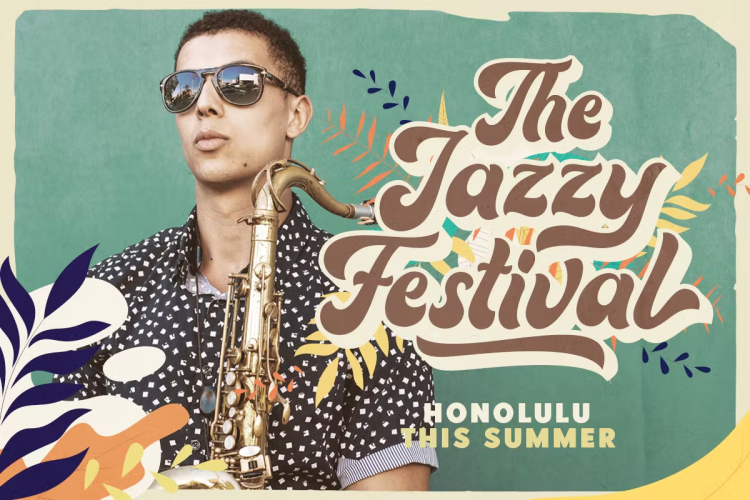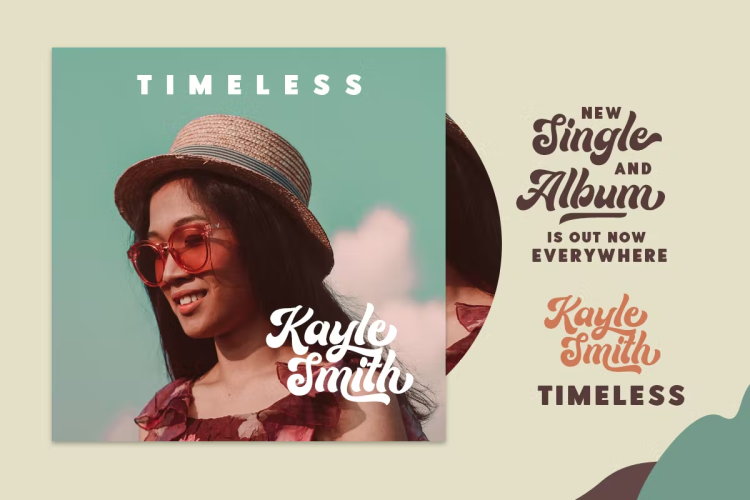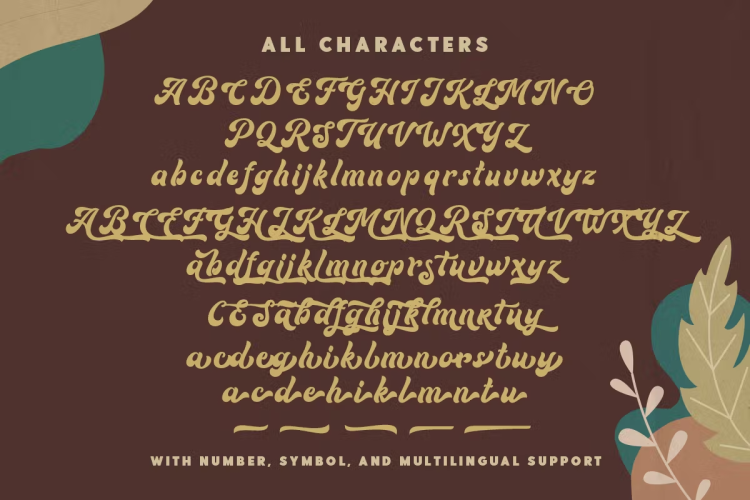
Routhers Retro Extrude Font
Routhers Retro is a retro bold font that contain Uppercase, Lowercase, Numerals, Accents, Punctuation, 4 set alternates, Ligatures, Swash, and also Underline. You can us…
Routhers Retro is a retro bold font that contain Uppercase, Lowercase, Numerals, Accents, Punctuation, 4 set alternates, Ligatures, Swash, and also Underline. You can use to make a logo for branding, best for apparel design, and quotes. This font also already PUA Encoded.
Where Routhers Retro Extrude Font works best
Routhers Retro Extrude Font brings a personal, handwritten warmth to invitations, menus and place cards.
Craft brands — coffee, cosmetics, bakery — use scripts like Routhers Retro Extrude Font for signature-style logos and labels.
Pair Routhers Retro Extrude Font with a plain sans for quotes, stories and Pinterest pins that feel handmade.
What is Routhers Retro Extrude Font good for?
Routhers Retro Extrude Font is a Script And Handwritten typeface tagged Bold, Branding, Retro, Script. It works well for headlines, logos, posters, social media graphics and branding projects that need a distinctive script and handwritten look.